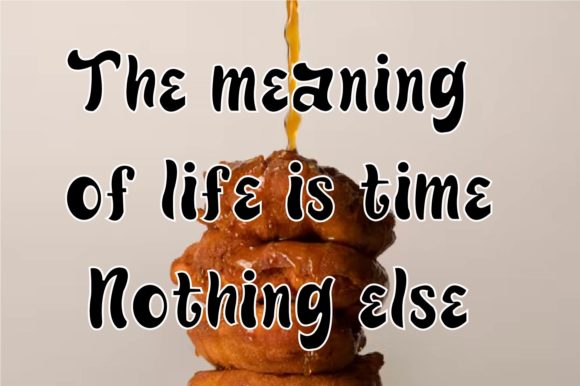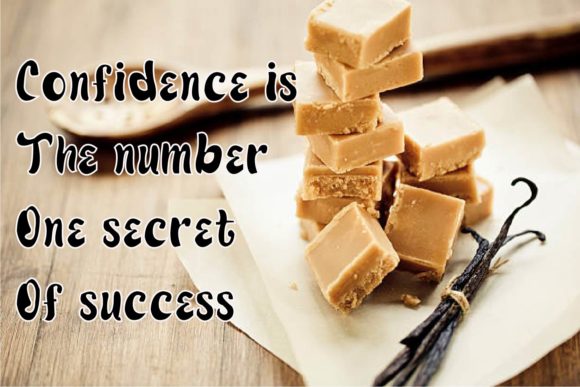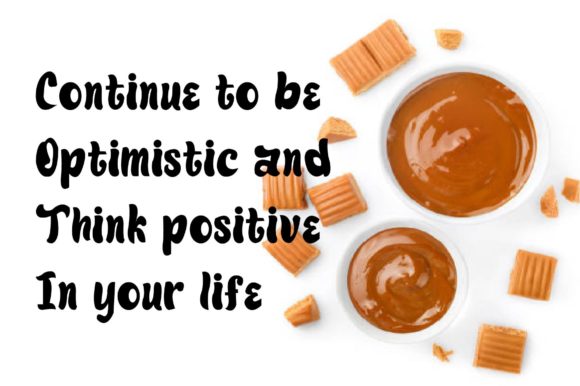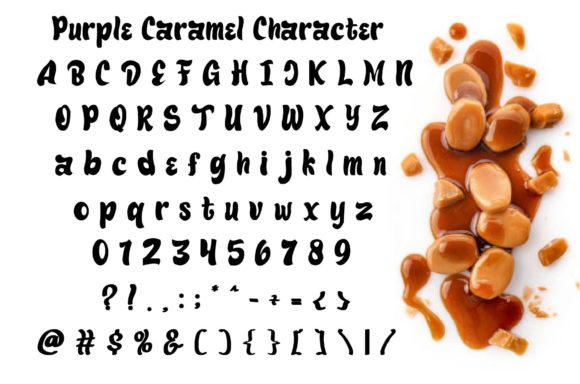
Ice Cream Caramel Font
About Ice Cream Caramel Font
Introducing “Ice Cream Caramel,” a bold and casual handwritten font designed to make your creative ideas stand out in any context. Whether you’re looking for fonts for Instagram posts or calligraphy scripts for DIY projects, Ice Cream Caramel adds a touch of personality and charm to your designs, turning them into true pieces of art.
With its bold strokes and casual style, Ice Cream Caramel is perfect for a wide range of applications, including logos, headings, t-shirts, letterhead, signage, labels, news, posters, badges, and more. Its versatility ensures that your designs will look outstanding and eye-catching, no matter where you use them.
Experience the creativity and versatility of Ice Cream Caramel and watch as it transforms your projects into captivating works of art. Whether you’re a professional designer or a passionate enthusiast, this font invites you to explore new possibilities and express yourself with confidence and style.
Unlock the full potential of your designs with Ice Cream Caramel and let its bold and casual handwritten font elevate your creative endeavors to new heights. With its versatile style and charming appeal, Ice Cream Caramel is sure to become a beloved addition to your design toolkit, inspiring creativity and innovation with every use.